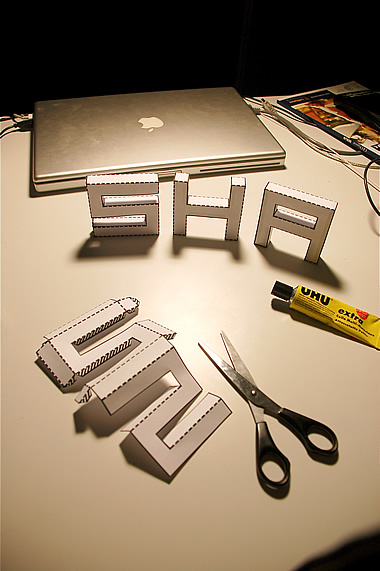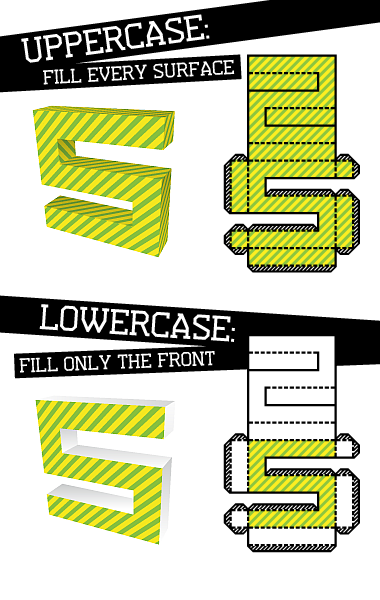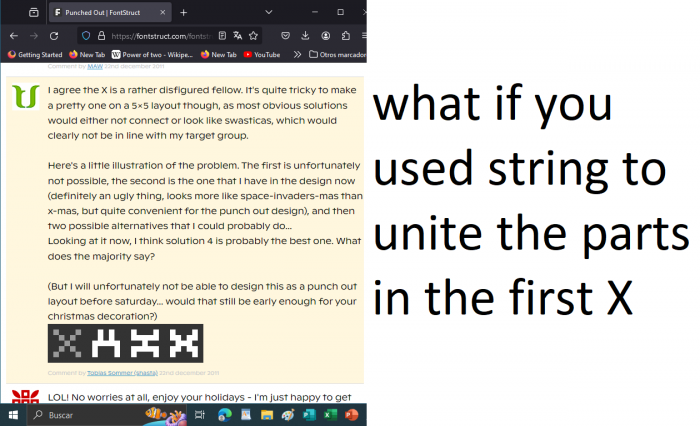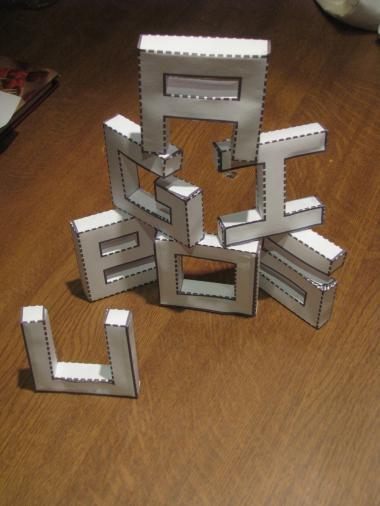
• Well, apparently everybody here likes building letters... And I'm sure everybody got told at least once to finally shut down that damn computer while fontstructing. Here's how you can go on tinkering fonts even with the computer unplugged!;)
I had carried this idea around with me a long time ago, doing some sketches, but abandoning it cause I thought all the thin and dotted lines would go beyond fontstruct's possibilities. Until funk_king proved me wrong... Thanks for the re-inspiration!
I think this is pretty self-explaining. Cut along the solid lines, fold along the dotted lines and put some glue on the shaded parts, put it all together, and there you go with your new toys!
Unfortunately it was impossible to fill all the inner sides of all the counters, but I tried to leave them open where you'd see it least. There might also be some bugs, I haven't tried them out yet. Pure brainwork so far... (My brain's still in the freezer to cool down a bit) In case someone ever actually uses them and finds something wrong, please let me know!
Check out the fill font if you wanna print your own custom-made design on the letters!
And I'm sure everybody got told at least once to finally shut down that damn computer while fontstructing.
So, SO true - the one downside to this app is its unrelentingly addictive nature. That said, I absolutely love this font - can't think of any time when I'd use it in a design, but for a rainy day's activities this is tops.
Shasta, now I'd love to see the real thing! :)
working on it... the S is almost done, just a bit fiddly to glue that stuff together - but it seems to work!
@chr.s: yep, definitely not my most useful fontstruction... but it could look cool for example in the background of a flyer. of course the context would have to fit... and right, who does flyers for crafting groups every day. ;)
I really love this font. Not many applications for it, but nevertheless a creative lesson.
I think you should mention Funk_King for the initial spark.
wow, dude. this is very cool to me. i love it. the concept and execution. amazing. i think when i did cutouti have something like this in mind. you've created a whole new category :) rock on.
i know this is a work in progress, but have you considered doing different versions - like black, outline... i think by enhancing the main outline of each glyph or filling it in, would definitely increase readability for those who would use just as type and not as cutouts :)
I second Em42 on the cut&glued real life sample! the next time i'm told to turn this thing off while fontstructing, i might make a set myself. very good idea!
It worth a pick.
Awesome in three real-world dimensions!
Amazing.
I hope for your sanity you are not really trying to build up the real thing: it would be for sure harder than building the font itself! :)
(I know because I tried to build the "E"...)
Thanks for your comments, everyone! They're very appreciated after the hard fontstructing... :) I have now added the numerals, if anybody has any wishes for other specific characters, let me know!
@funk_king: Yep, I've thought about a filled version too for simple type-use. But before cloning i wanted to have the complete character set... Now I'm actually thinking about doing fill letters on the lowercase, so you'd have all in one font. What do you think about that? Outline sounds interesting too...
@Em42 and cayo: The cut-and-glued real life sample is actually done already! Looks pretty cool, and the satisfaction of seeing that everything goes exactly where it's supposed to, is so huge that I'm seriously considering becoming a punch-out-sheet designer... (Kidding!)
Anyway, I can now confirm that A, H, S and T work perfectly. Here's a picture from the making-of:
Shasta, you brought FontStruct to another dimension – literally!
congrats, dude. i like the idea of using lc for filled version. you are a font designer/punch-out designer. and your sample brought a tear to my eye :) incredible. i'm sure it was relief and elation when they came together so beautifully. i'm stunned by the whole project and so very glad you did it.